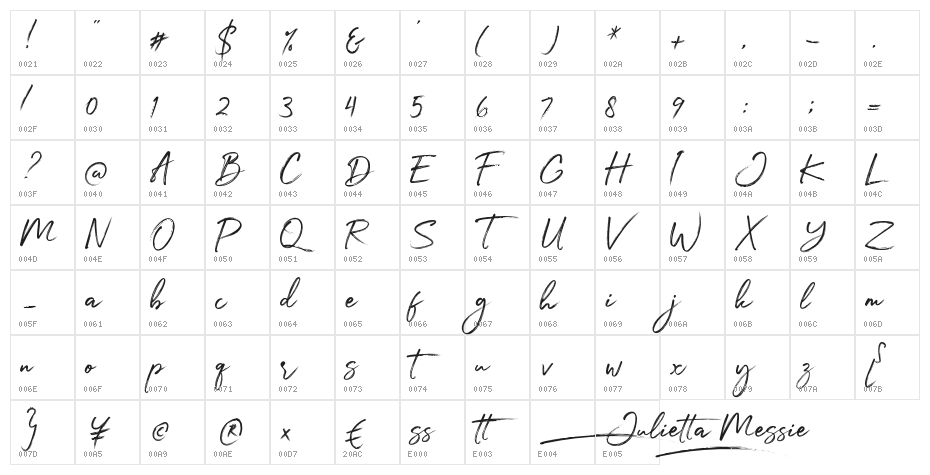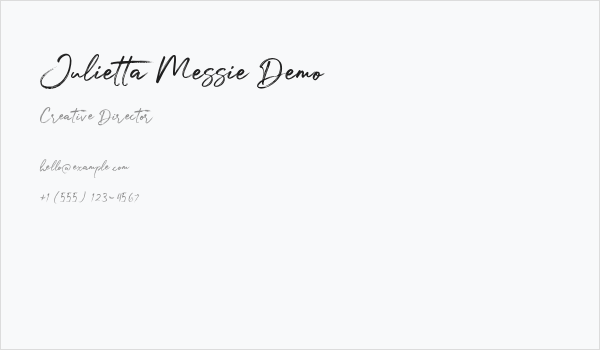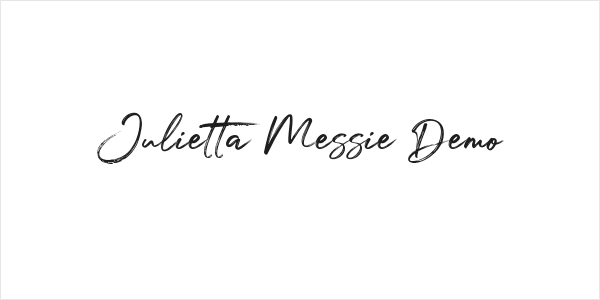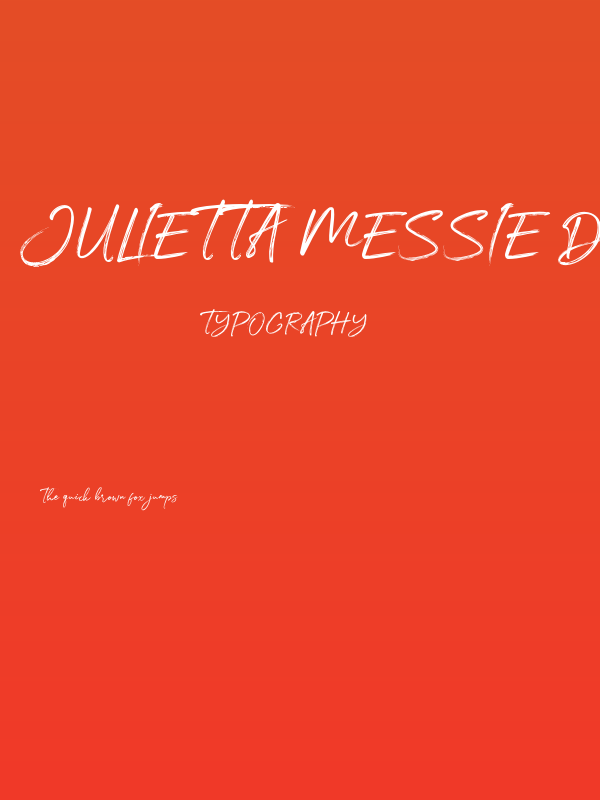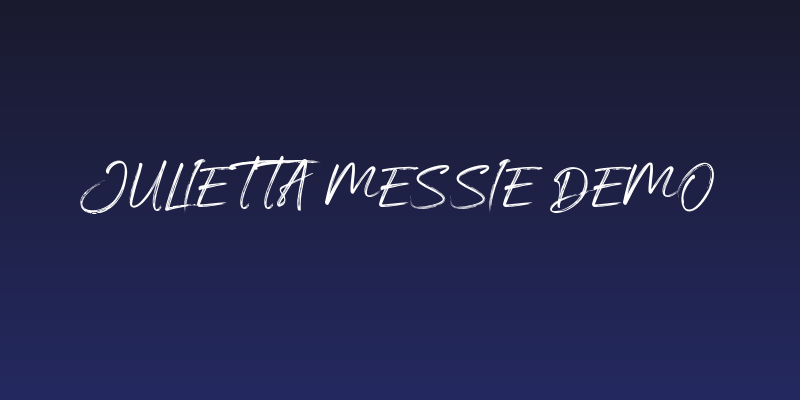
Julietta Messie Demo Font
Julietta Messie Demo Description
This font features an elegant, flowing script style with a handwritten appearance. The uppercase letters are tall and slender, with graceful curves and a slight slant, giving them a sophisticated and artistic look. The lowercase letters are more connected, enhancing the cursive feel, and they maintain a consistent flow throughout. The numbers and special characters complement the alphabet with similar fluidity and style. The strokes vary in thickness, adding a dynamic and lively touch to the overall design. This font exudes a sense of creativity and personal expression, making it suitable for projects that require a personal or artistic touch.
| Proposed Projects | Ideal for wedding invitations, greeting cards, personal branding, and artistic projects. |